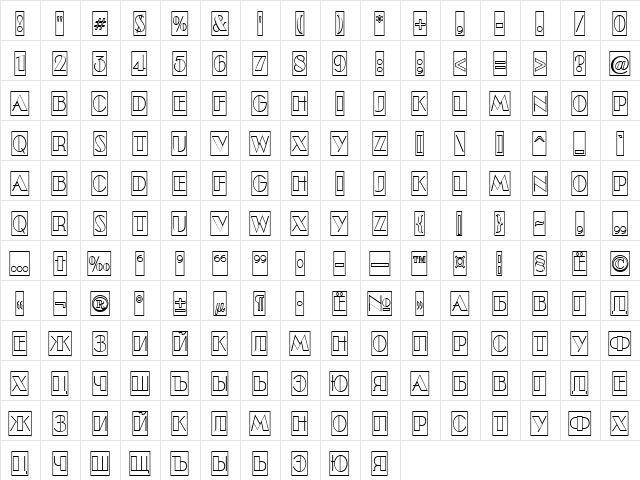
a_BentTitulCmOtlNr Regular
Design Context for a_BentTitulCmOtlNr Typeface
a_BentTitulCmOtlNr offers clean, dependable letterforms without strong stylistic allegiance, making it a practical choice for designers who need flexibility.